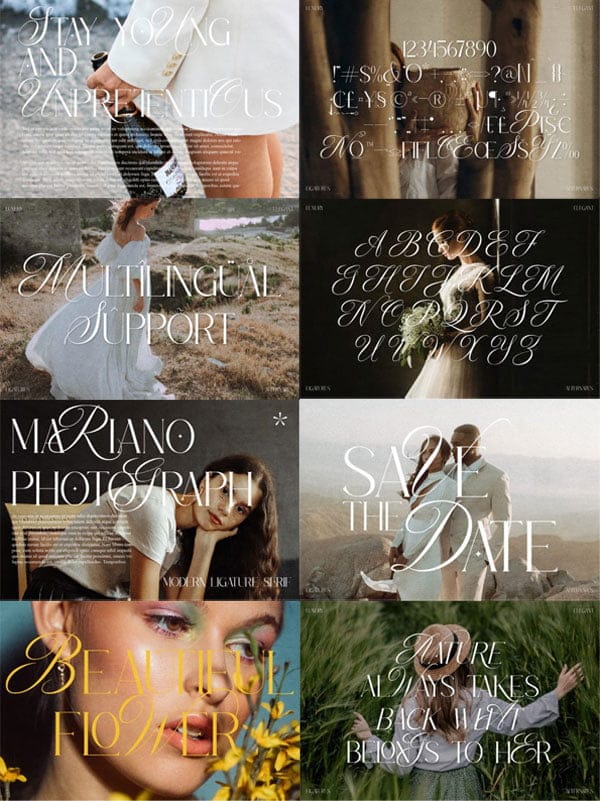
Merqola Nature Font
Merqola Nature is a modern serif font with interesting variations. Bring a little magic or romance to your work—it’s a fun twist on the traditional look and feel of a classy serif font. You Can Also Download Special Bundle Fonts Collection.
Merqola Nature Font